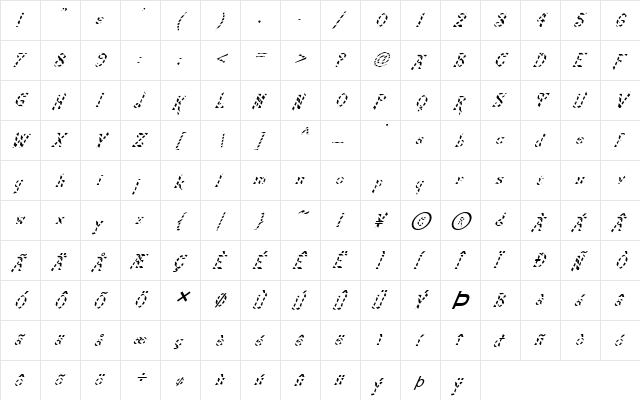
FZ JAZZY 21 STRIPED ITALIC Normal
Design Context for FZ JAZZY 21 STRIPED ITALIC Typeface
FZ JAZZY 21 STRIPED ITALIC is a composed and adaptable typeface that performs quietly and consistently across a wide range of design contexts. The slanted form adds forward momentum and visual energy.
Pro Tip: Try FZ JAZZY 21 STRIPED ITALIC for annotation and caption copy alongside an upright companion — the contrast in angle creates a dynamic but ordered typographic system.